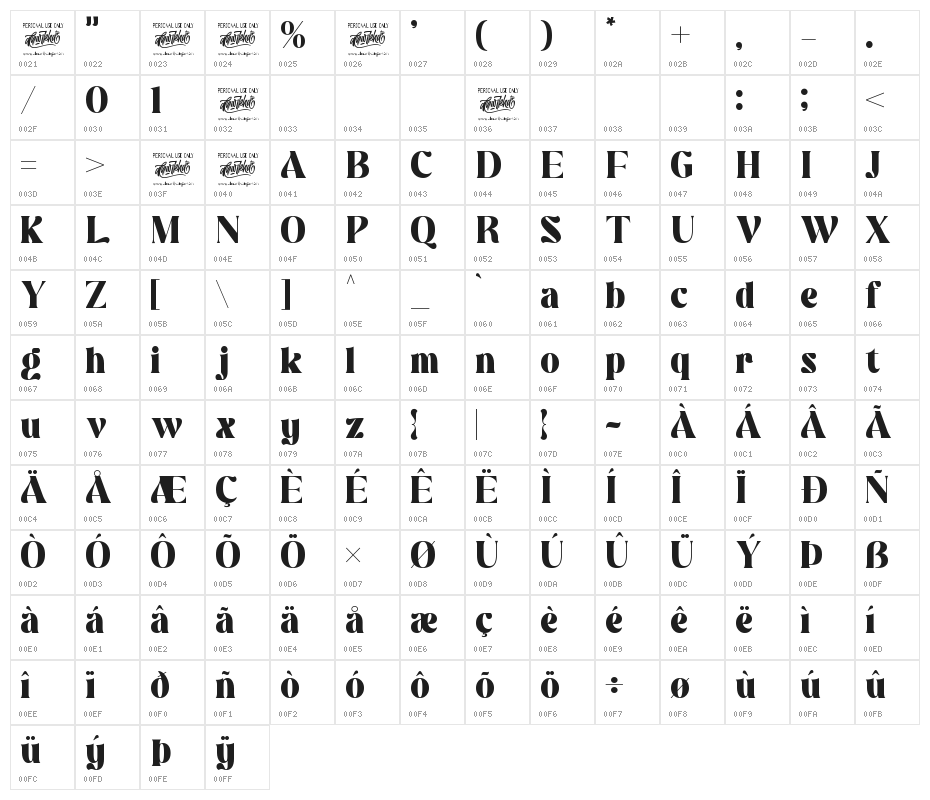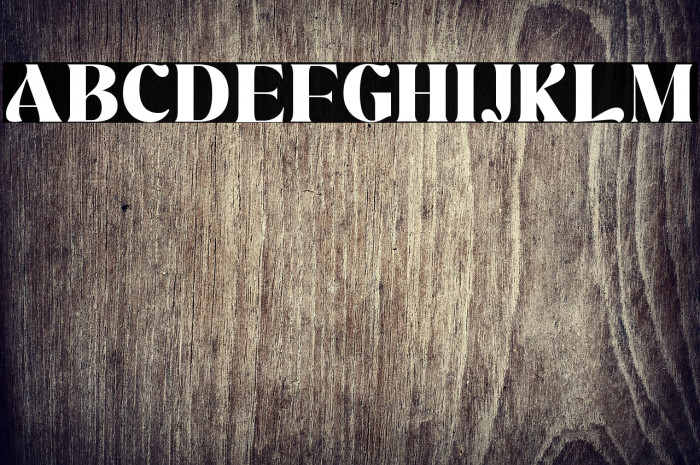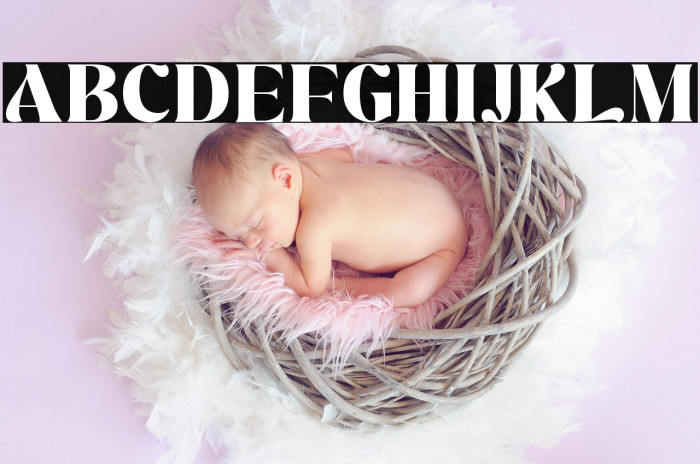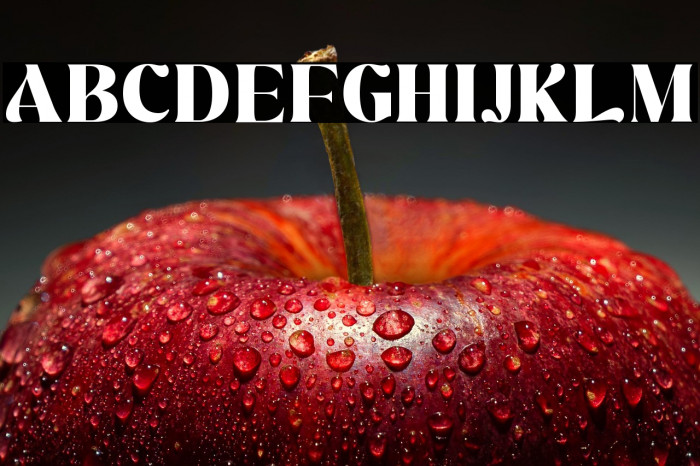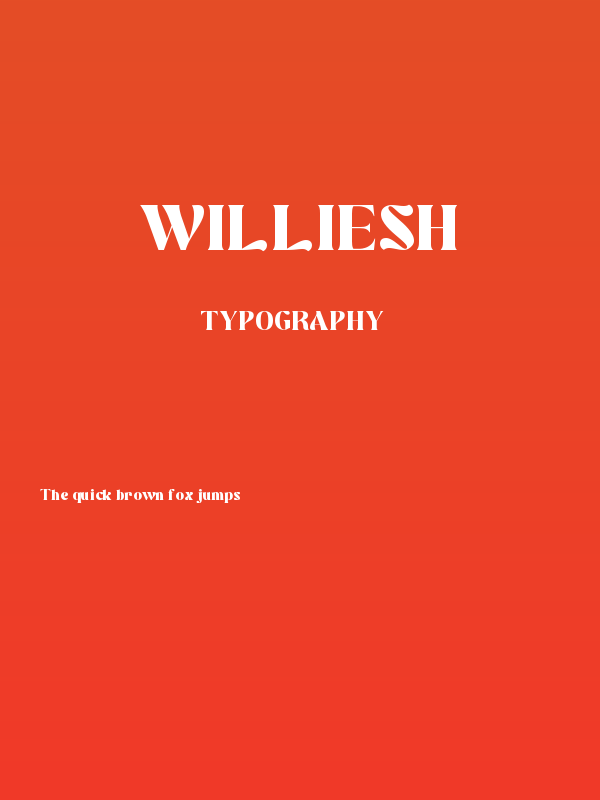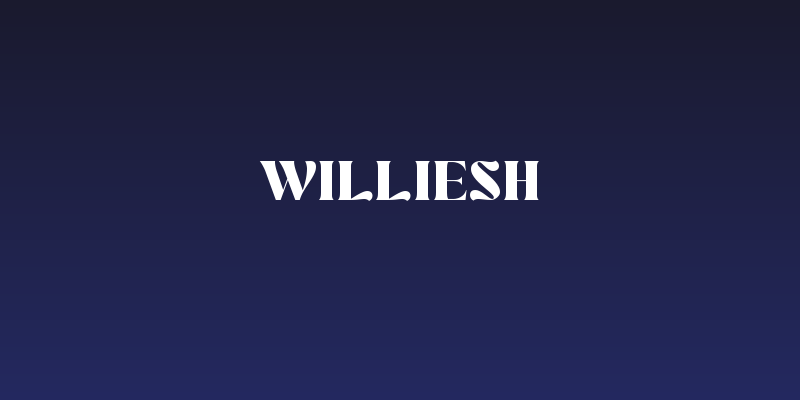
Williesh Font
Williesh Description
This font features a bold and striking design with high contrast between thick and thin strokes, giving it a dramatic and impactful appearance. The uppercase letters are particularly distinctive, with unique curves and angles that add a sense of movement and flair. The lowercase letters maintain a consistent style, complementing the uppercase with rounded forms and smooth transitions. The numerals are bold and clear, ensuring readability. Special characters are creatively designed, adding to the font's decorative appeal. Overall, this font exudes a modern yet classic vibe, making it suitable for various creative applications.
| Overall Style | Modern Classic |
| Proposed Projects | Ideal for branding, poster design, headlines, and any project requiring a strong visual impact. |